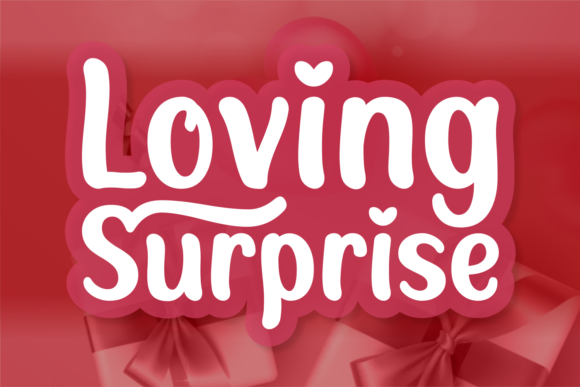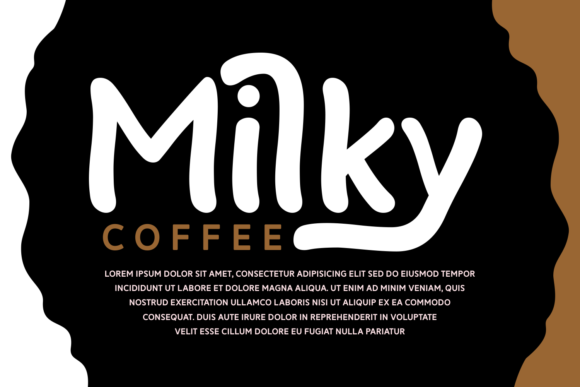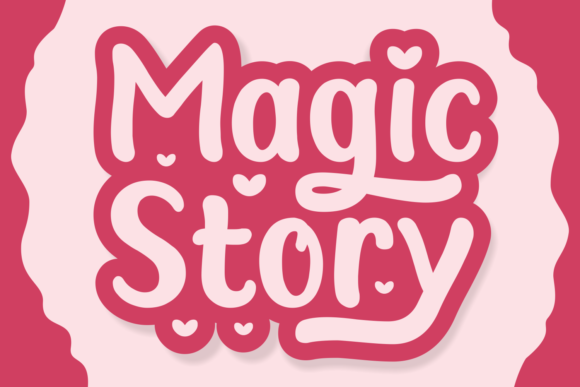
Introducing Crystia Font: Elevate Your Designs with Elegance and Whimsy
Are you on the hunt for a font that combines elegance with a touch of playfulness? Look no further than Crystia Font, a stunning display font that is sure to transform your designs. With its beautiful swashes and versatile nature, Crystia is perfect for a wide range of projects, from posters and food labels to logos, menus, covers, quotes, movies, and art prints.
The Charm of Crystia Font
Crystia Font is an elegant and cute display font that is designed to add a touch of sophistication and whimsy to your designs. Its nice swashes give it a unique flair, making it stand out from more traditional fonts. Whether you’re a designer looking to elevate your branding or a crafter seeking to add a personal touch to your projects, Crystia is the perfect choice.
One of the best things about Crystia Font is its versatility. This font can be used for a wide range of projects, including:
- Posters: Create eye-catching posters for events, promotions, or announcements that are sure to grab attention.
- Food Labels: Add a touch of elegance to your food labels, making your products stand out on store shelves.
- Logos: Use Crystia to create a unique and memorable logo for your brand that reflects your personality and style.
- Menus: Design menus that are both stylish and easy to read, perfect for restaurants, cafes, or special events.
- Covers: Create stunning book covers, magazine covers, or album covers that capture the essence of your content.
- Quotes: Add a touch of inspiration to your quote designs, making them perfect for sharing on social media or printing as art.
- Movies: Use Crystia to create titles, subtitles, or credits for your film projects that add a touch of glamour.
- Art Prints: Design beautiful art prints that showcase your creativity and style, perfect for selling online or displaying in your home.
Why Choose Crystia Font?
So, why should you choose Crystia Font for your next project? Here are just a few reasons:
- Elegant and Cute: Crystia combines elegance with a touch of playfulness, making it perfect for a wide range of designs.
- Nice Swashes: The beautiful swashes in Crystia add a unique touch to your designs, making them stand out from the crowd.
- Versatile: Crystia can be used for a wide range of projects, from posters and logos to menus and art prints.
Get Creative with Crystia Font
Tips for Using Crystia Font
To get the most out of Crystia Font, here are a few tips:
- Experiment with Swashes: Don’t be afraid to experiment with the swashes in Crystia to add a unique touch to your designs.
- Play with Colors: Crystia looks great in a wide range of colors, so don’t be afraid to get creative and try out different color schemes.
- Mix and Match: Try pairing Crystia with other fonts to create a unique and interesting design.
With these tips and Crystia Font, you’ll be well on your way to creating stunning designs that showcase your creativity and style.